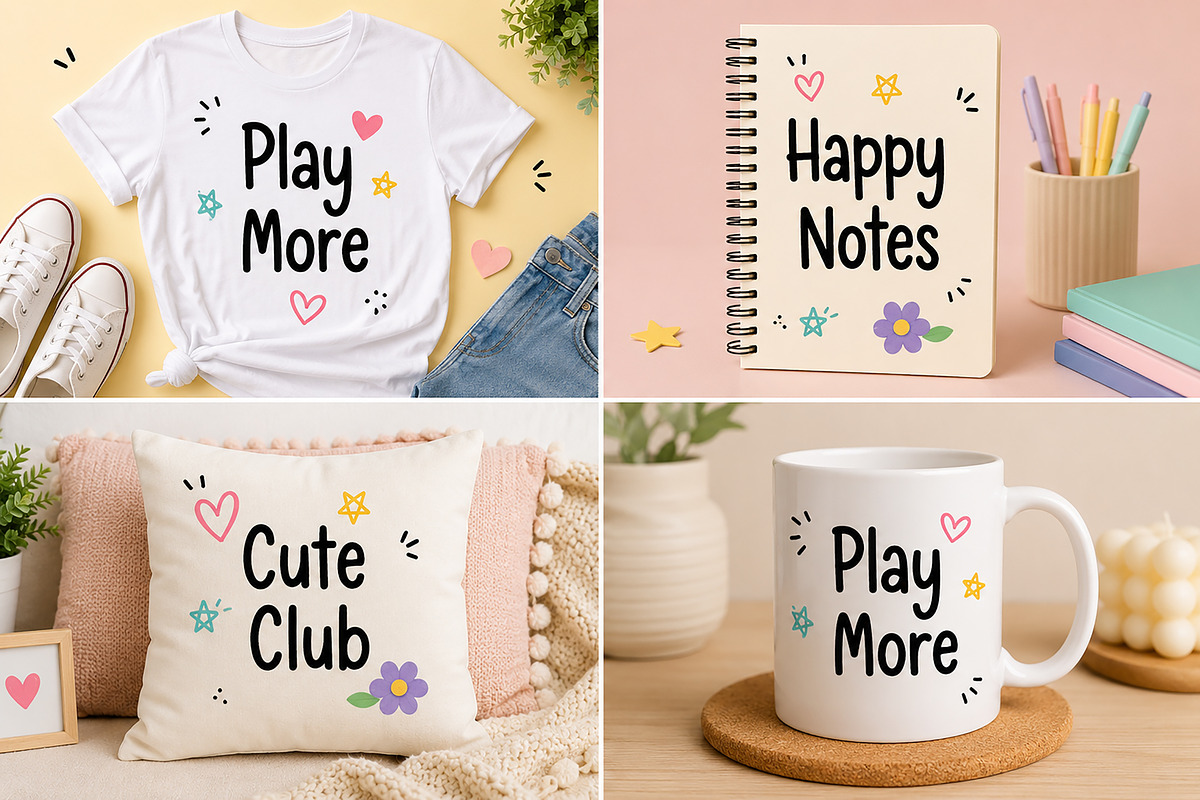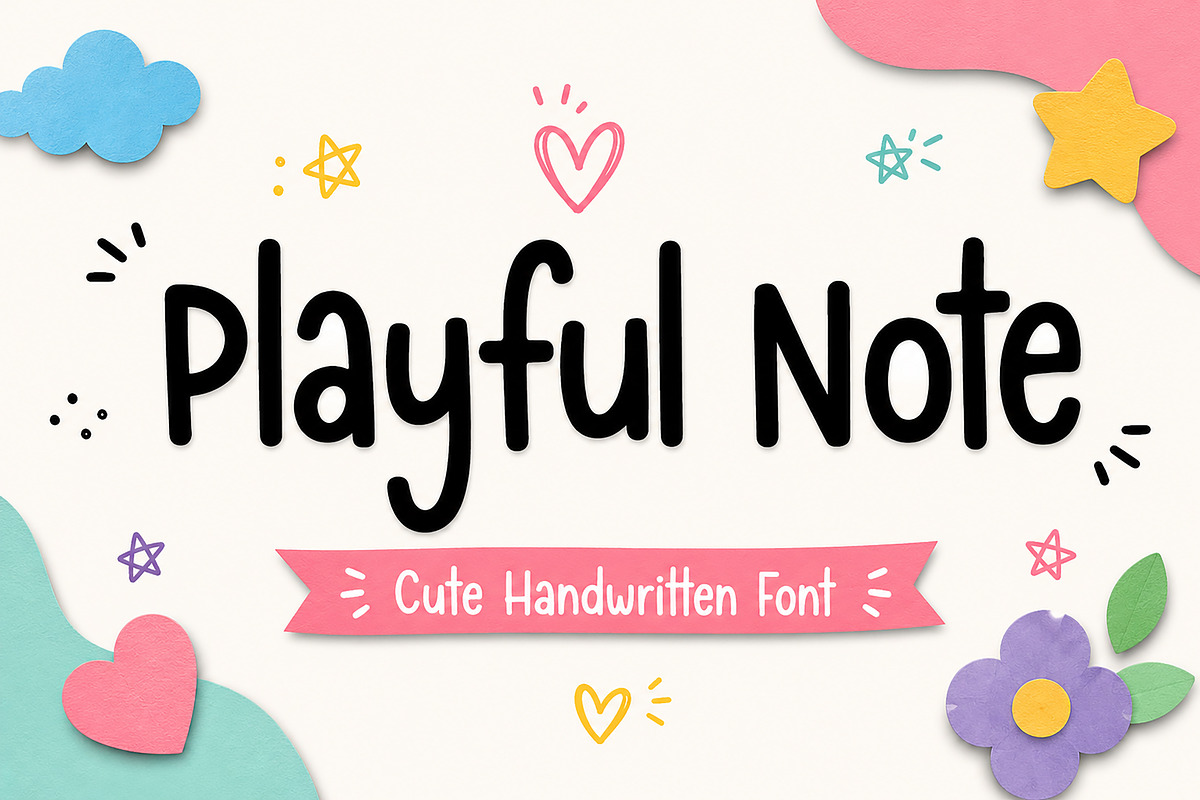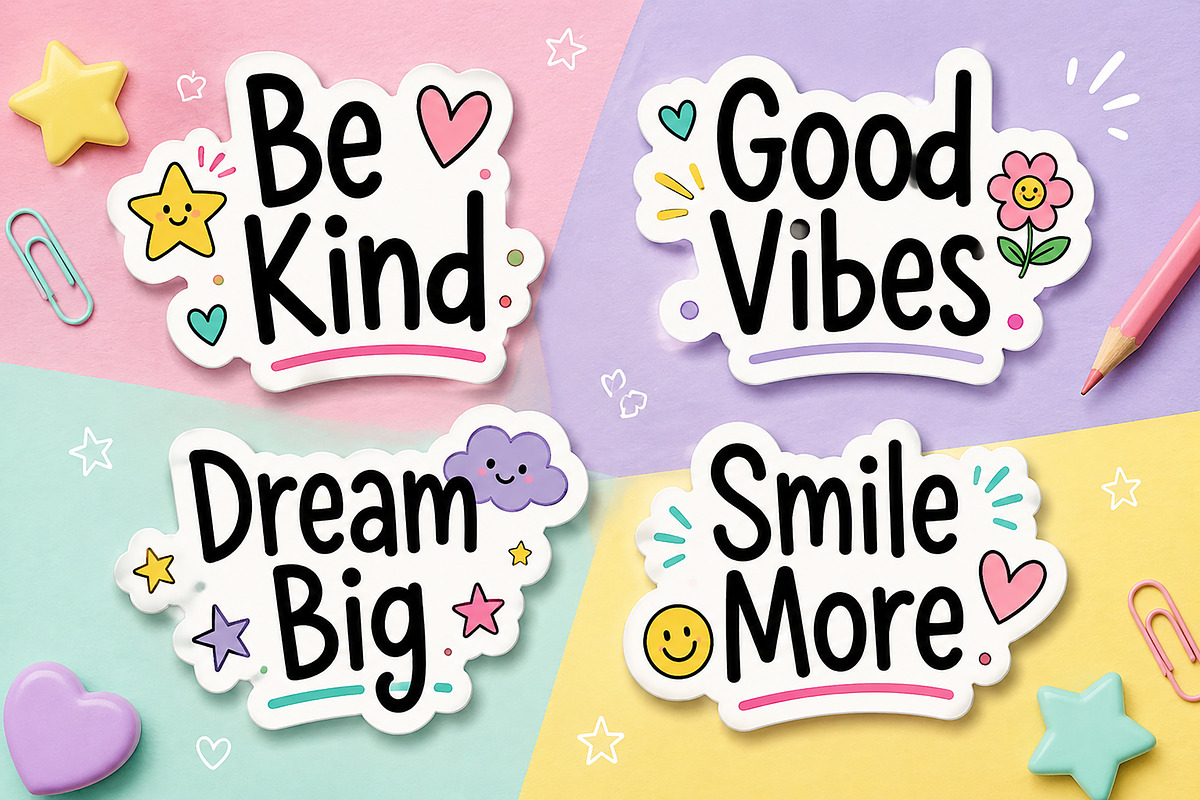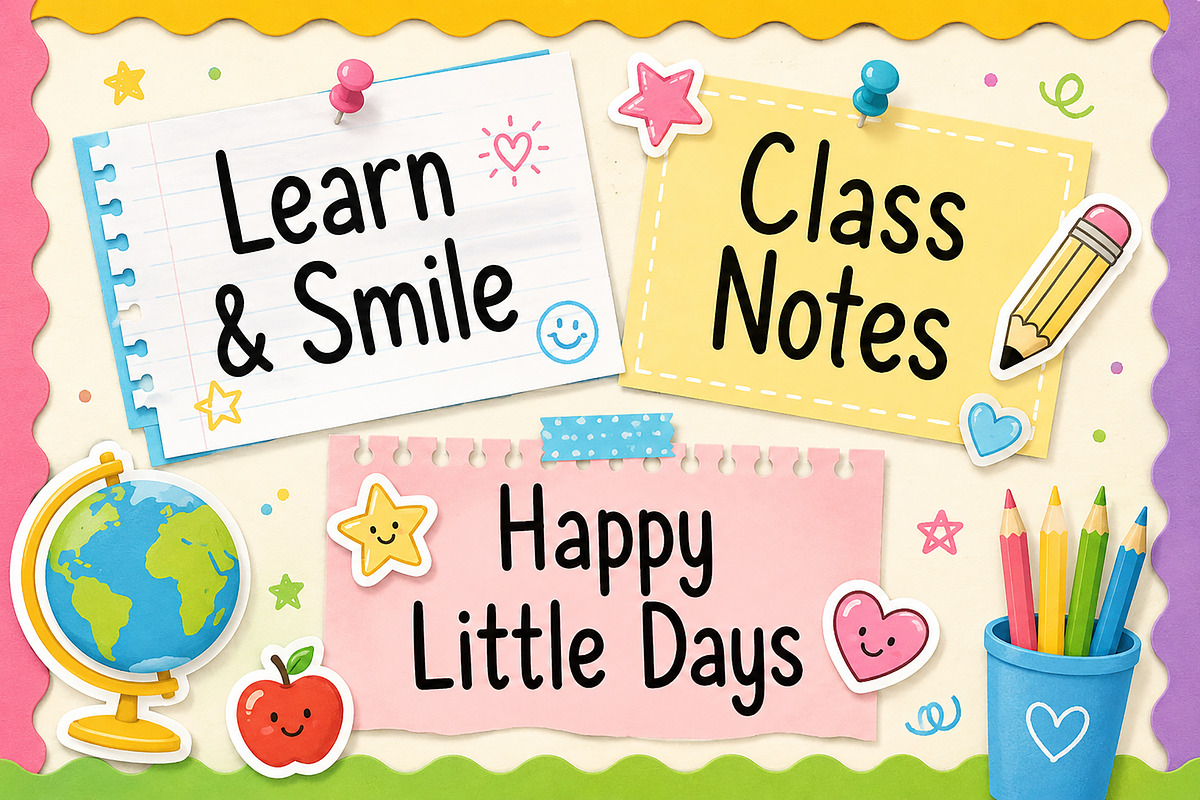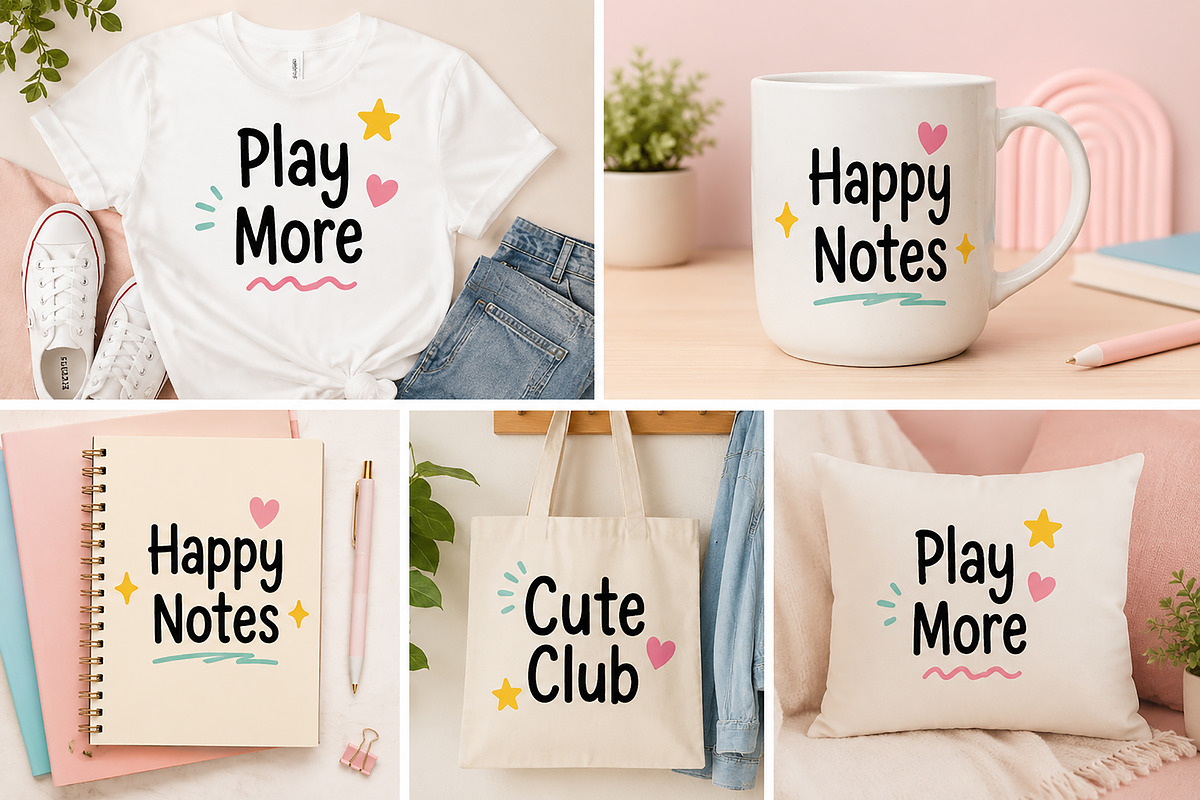
Playful Note
Playful Note – Cute Handwritten Font
Introducing Playful Note, a charming and cheerful handwritten font designed to bring warmth, creativity, and personality to your projects. With its smooth strokes, playful character shapes, and friendly handwritten style, this font is perfect for kids-related designs, classroom materials, stickers, Cricut projects, planners, notebooks, greeting cards, social media graphics, and creative branding.
Whether you're creating educational resources, printable worksheets, fun quotes, party invitations, product packaging, or cute merchandise, Playful Note adds a joyful and approachable touch that instantly captures attention.
Its clean readability combined with a fun handwritten feel makes it versatile for both digital and print projects. Perfect for teachers, crafters, designers, small businesses, and print-on-demand sellers looking for a font that feels friendly, playful, and full of positive energy.
Kids Designs
Classroom Resources
Teachers Printables
Stickers & Cricut Projects
Notebooks & Journals
Greeting Cards
Party Invitations
T-Shirts & Merchandise
Tote Bags & Mugs
Posters & Quotes
Branding & Packaging
Scrapbooking
DIY Crafts
Easy to Read
Fun Handwritten Style
Bring happiness, creativity, and playful charm to your next design project with Playful Note!